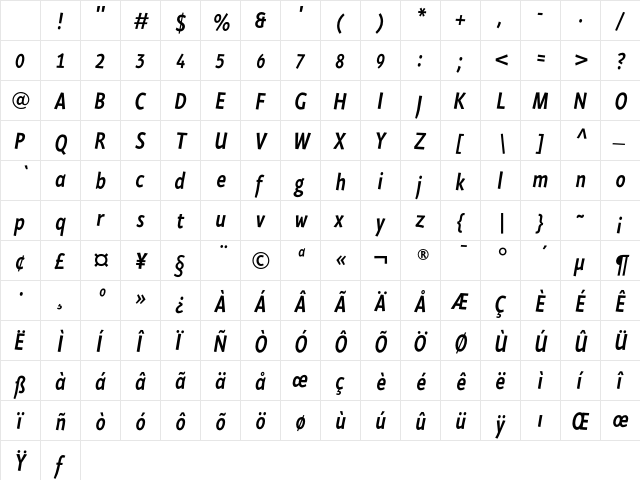
HerbertEF is a composed and adaptable typeface that performs quietly and consistently across a wide range of design contexts. The slanted form adds forward momentum and visual energy.
Pro Tip: Use HerbertEF for emphasis, pull quotes, and subheadings where its slanted energy can add rhythm to the layout.